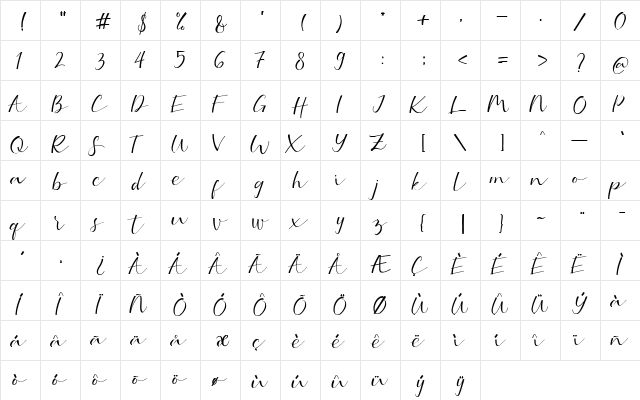
Serotonin Regular
Design Context for Serotonin Typeface
Serotonin is a composed and adaptable typeface that performs quietly and consistently across a wide range of design contexts.